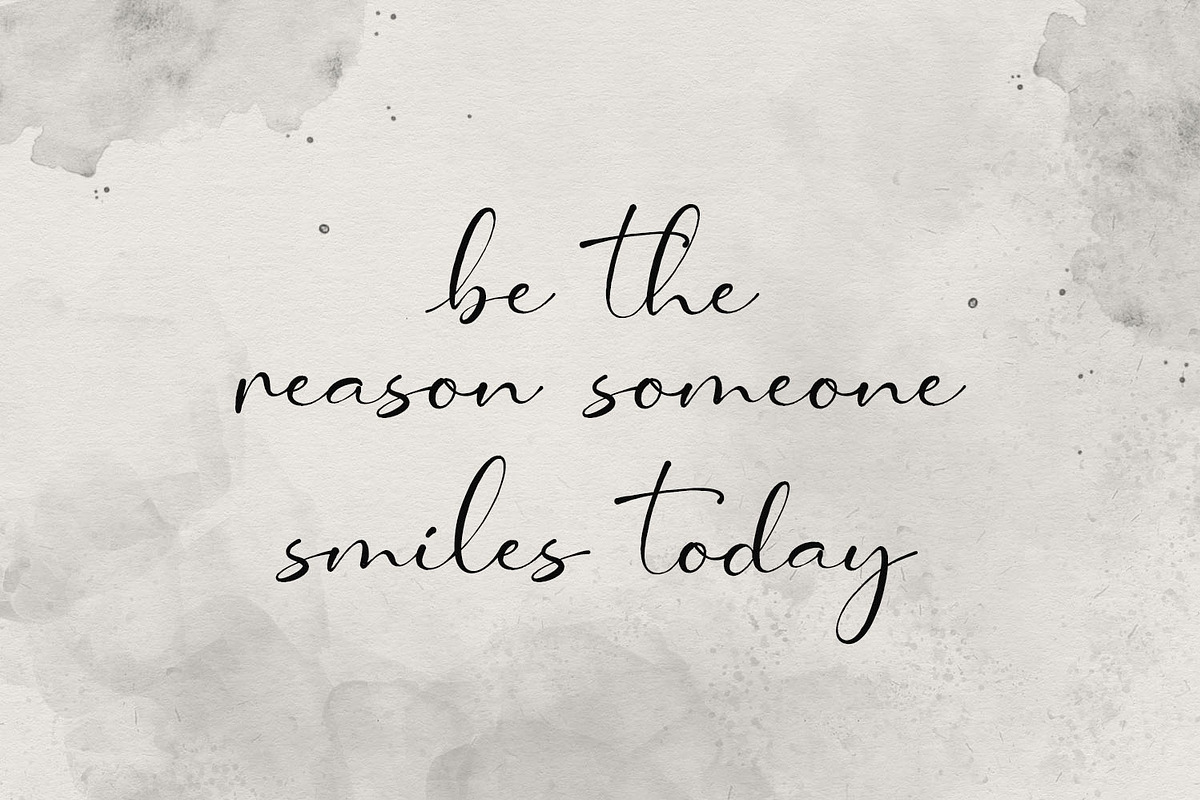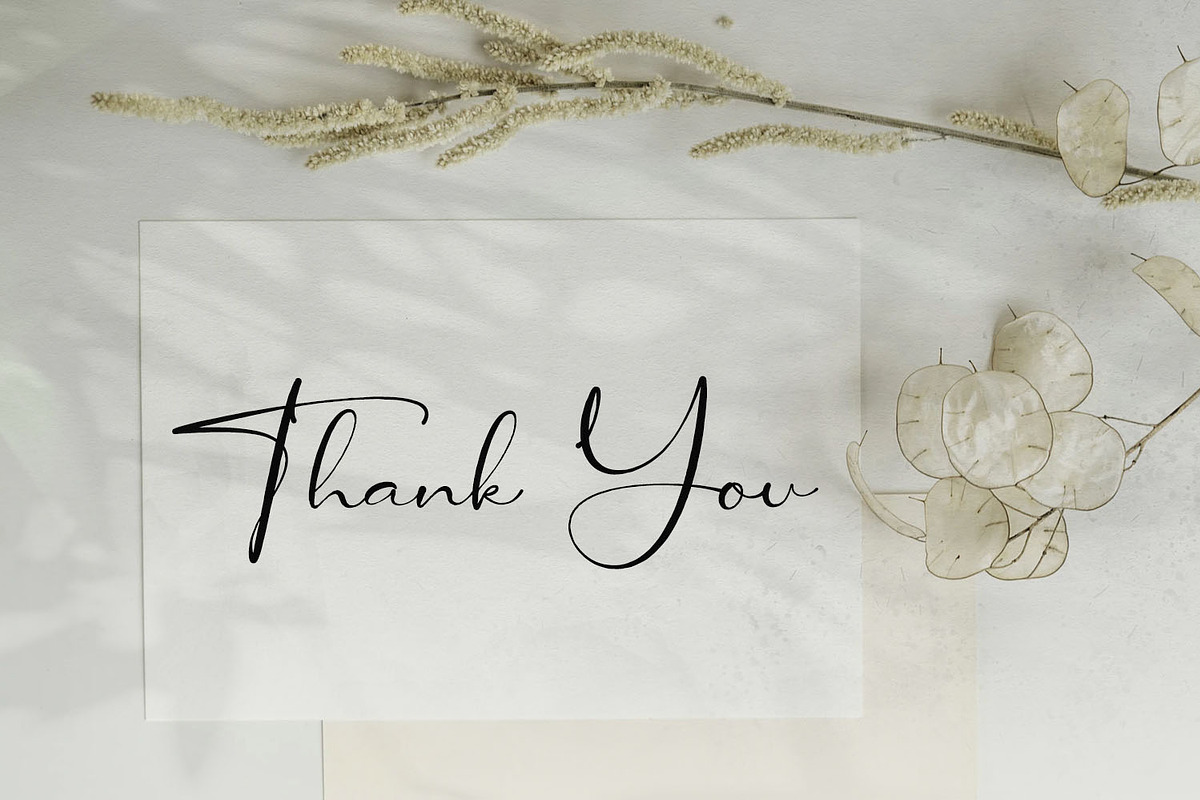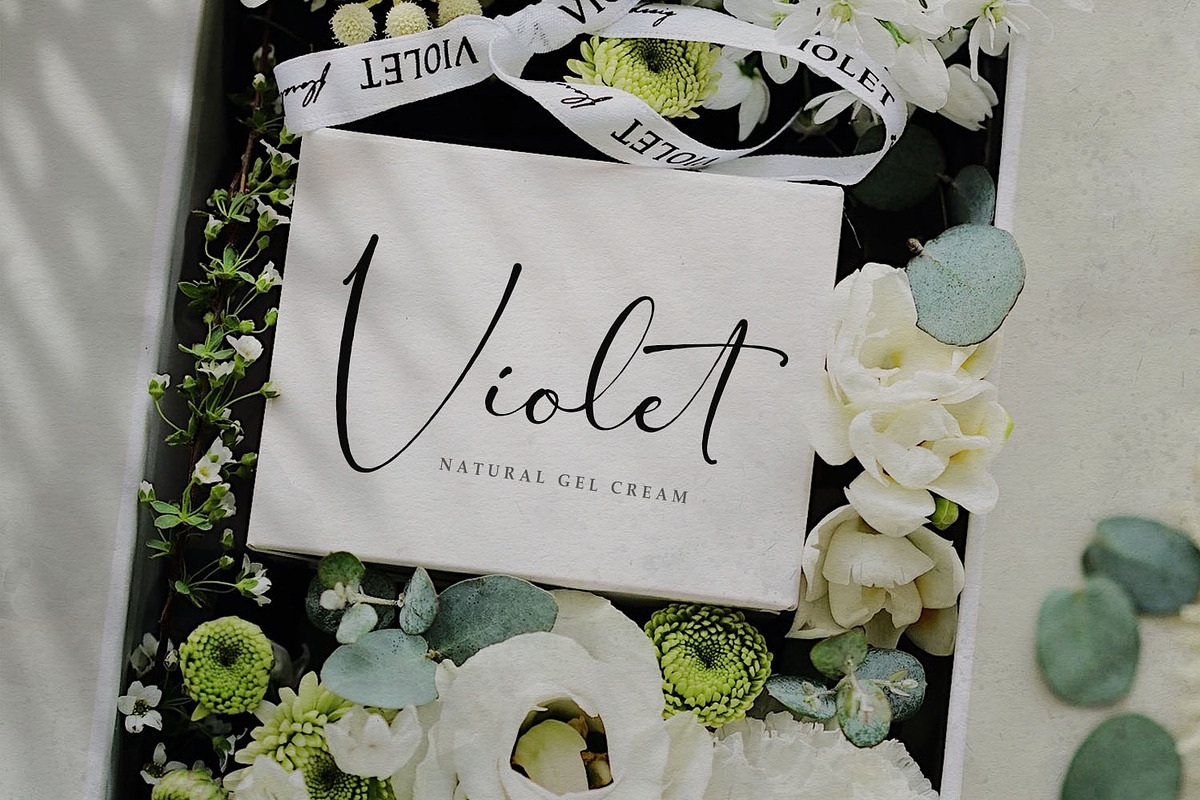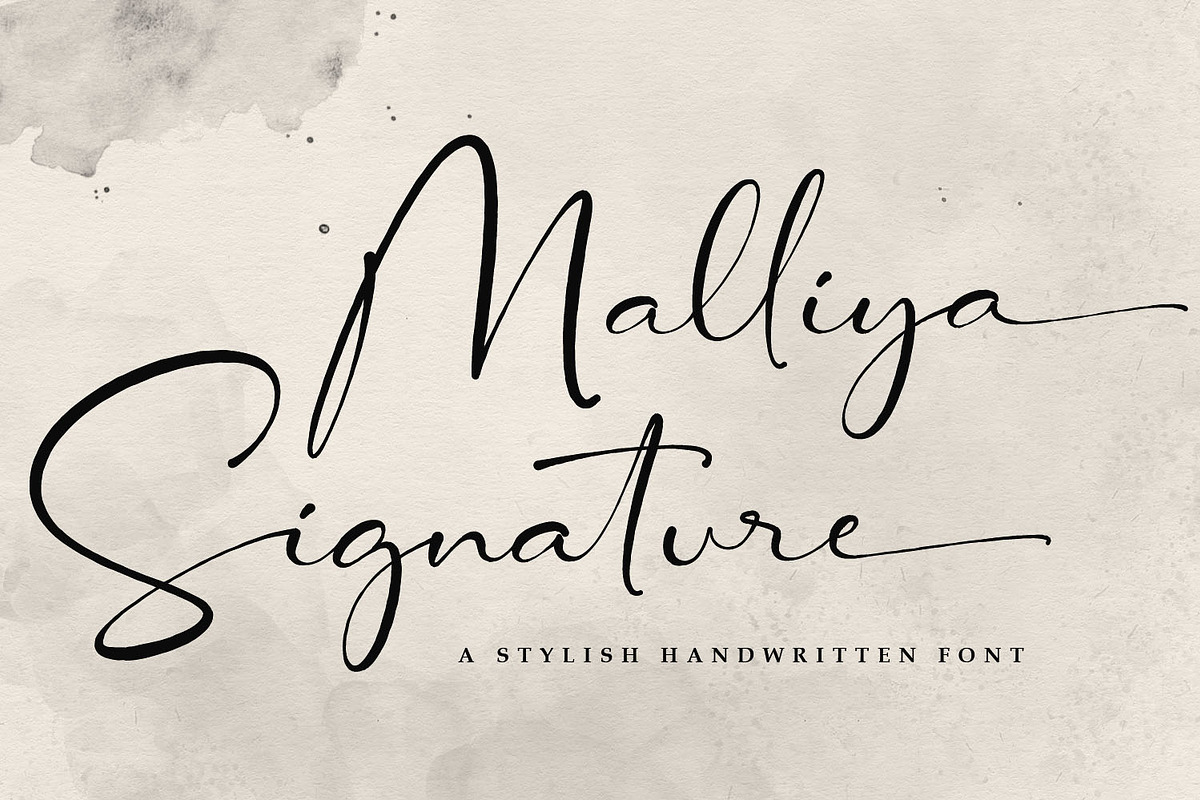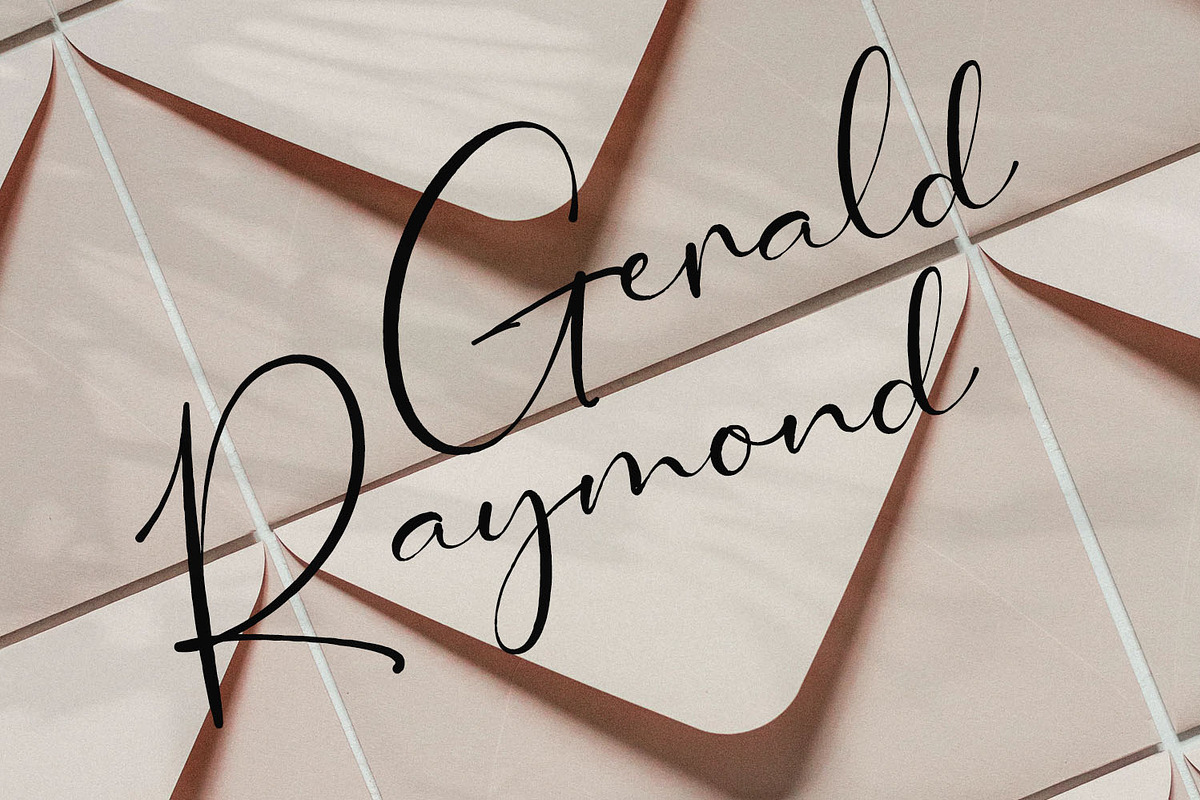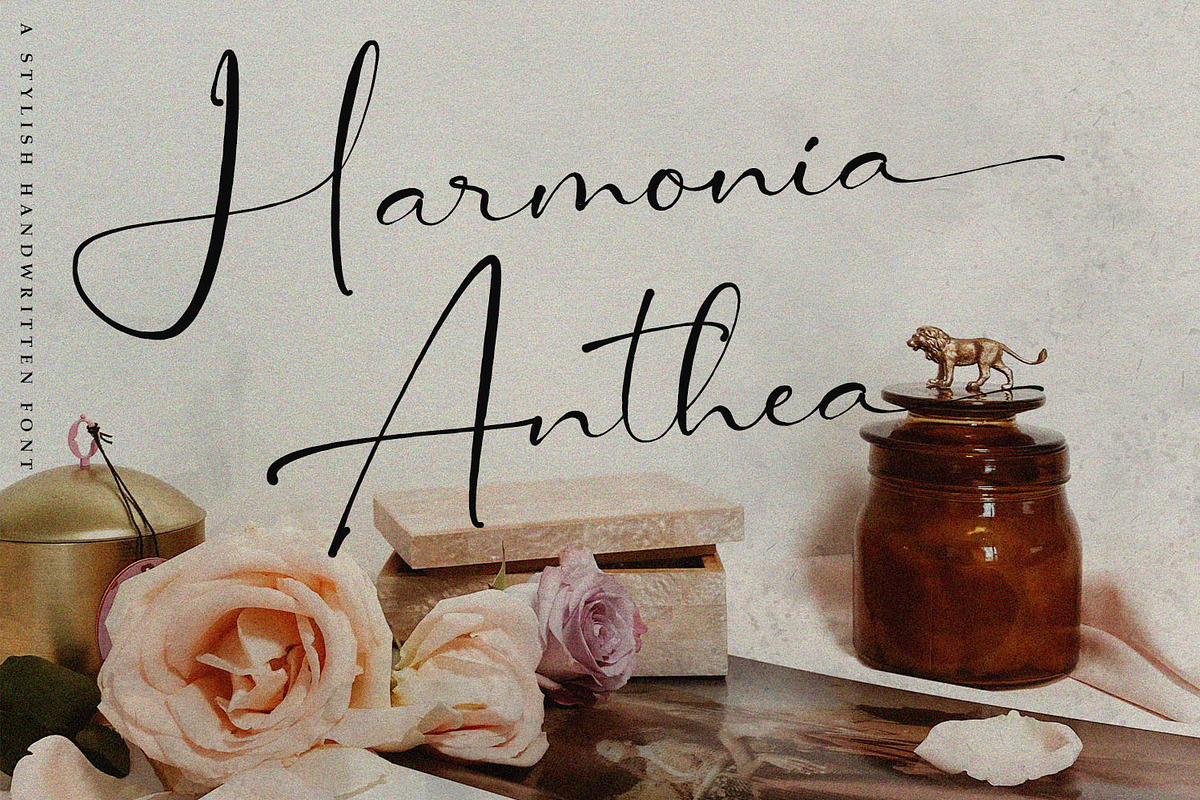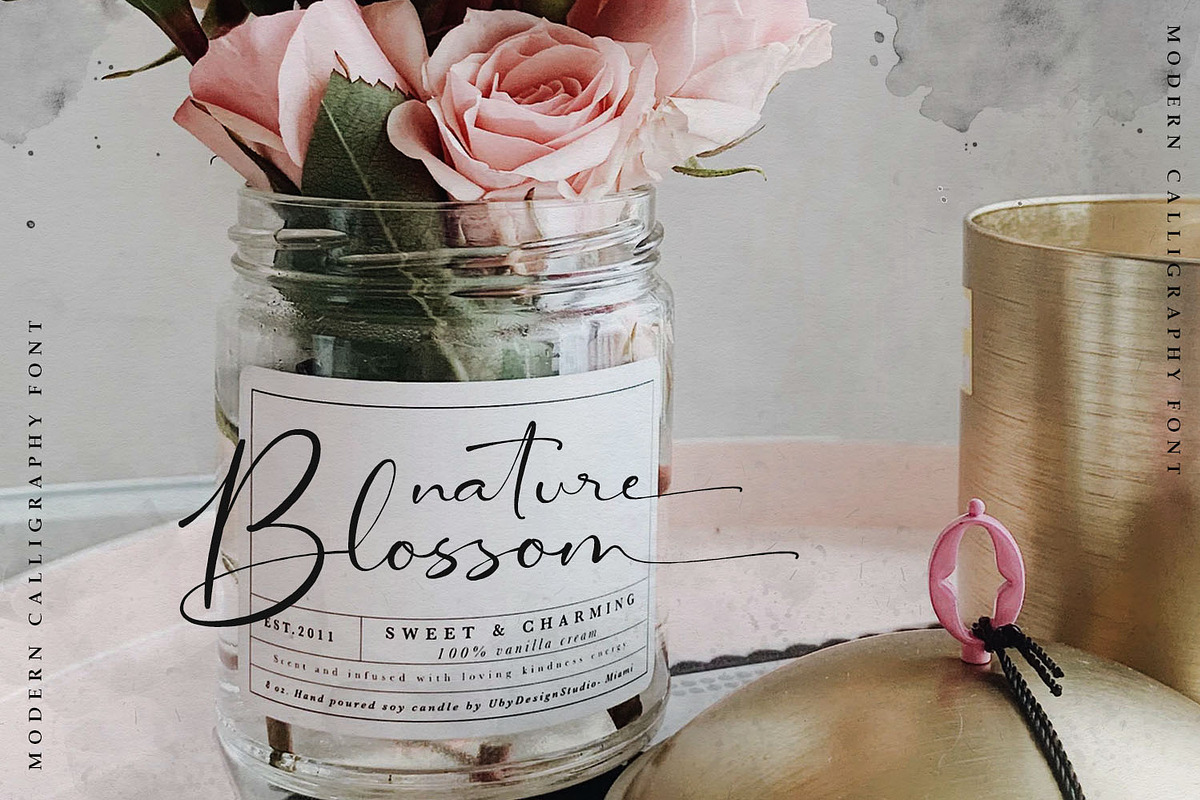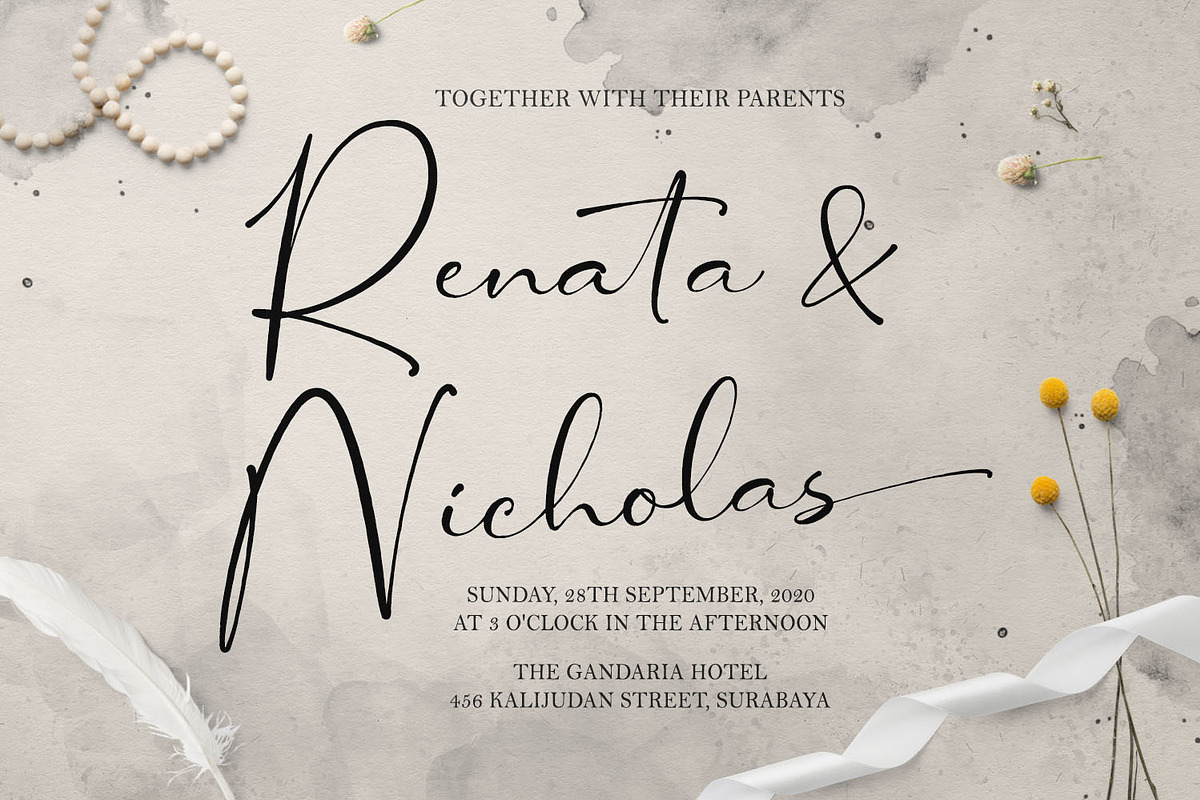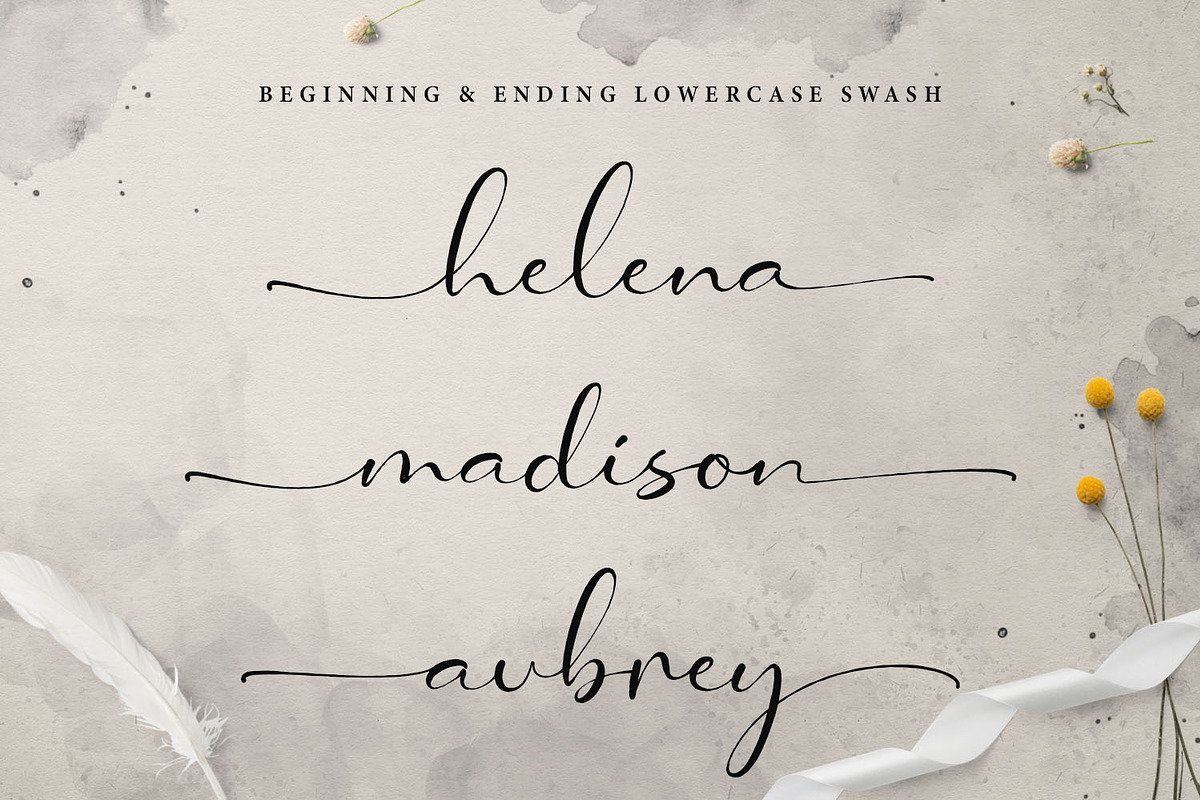
SALE Malliya Signature Font
Malliya Signature is a beautiful handwritten script font. Perfect for making elegant stylish statements - or adding a touch of class to your designs. This script has a multitude of natural-looking ligatures in its OpenType features - making the font look as close to natural handwriting as possible.
Malliya Signature is perfect for many different projects such as logos & branding, invitation, stationery, wedding designs, social media posts, advertisements, product packaging, product designs, label, photography, watermark, special events, or anything.